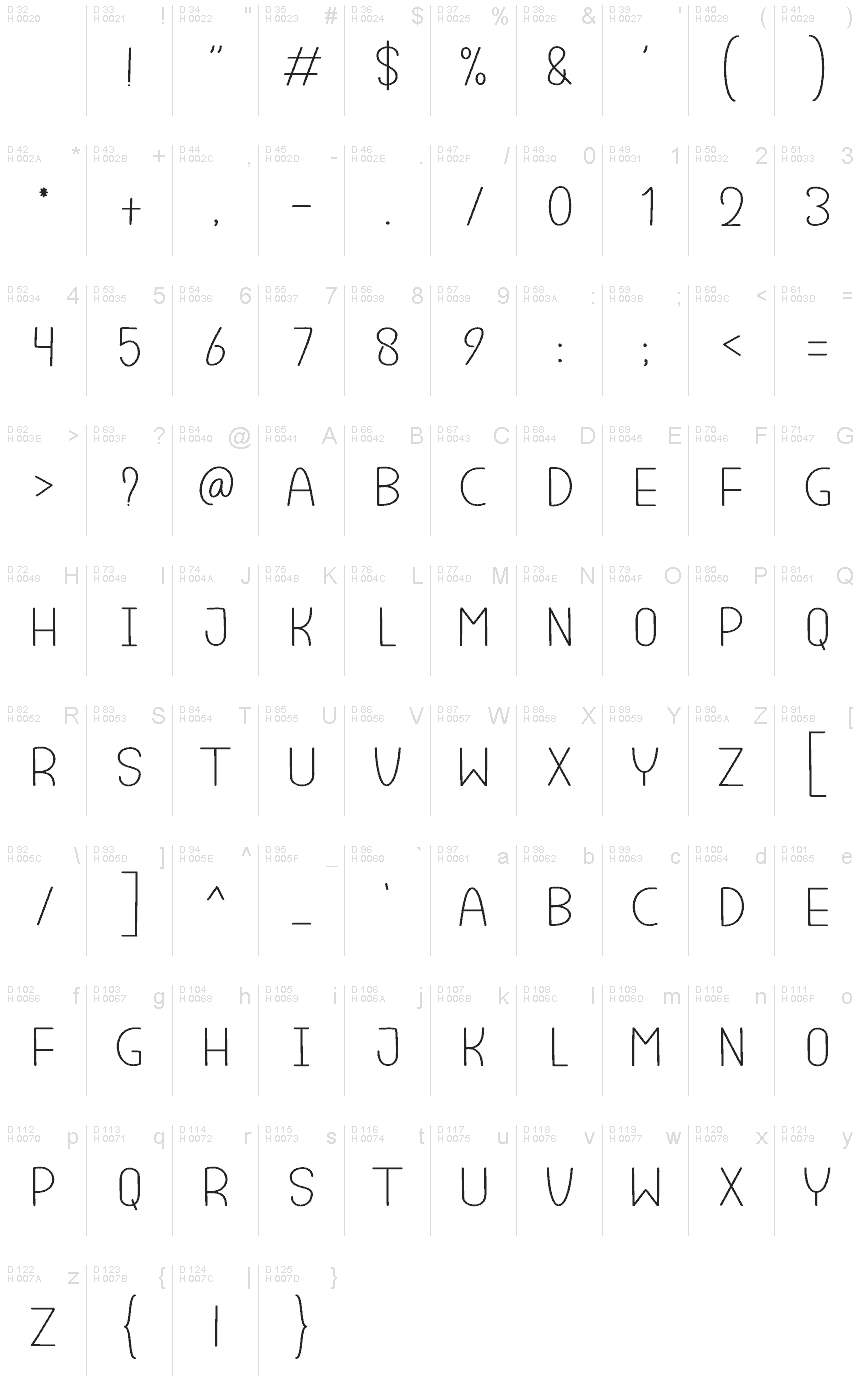
Summer Comeback
Summer Comeback font designed by Andi Moz is a light handwritten free font with a modernist touch. It brings elegant and minimalistic design elements that are ideal for projects that wish to carry the same feel. Geometric, clean lines and other contemporary aesthetics make each character unique on its own.
Combine this beautiful tool within logo designs, branding, titles, quotes, posters or flyers. Use it in more business-oriented tasks like marketing campaigns and packaging to give them an original identifiable feel. Magazine covers, book covers are further ideas where this font can be implemented along with invitations or greeting cards.